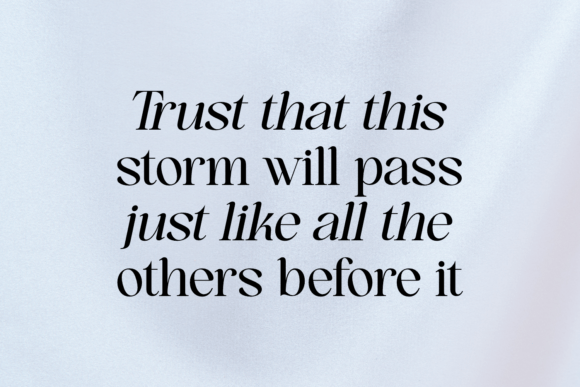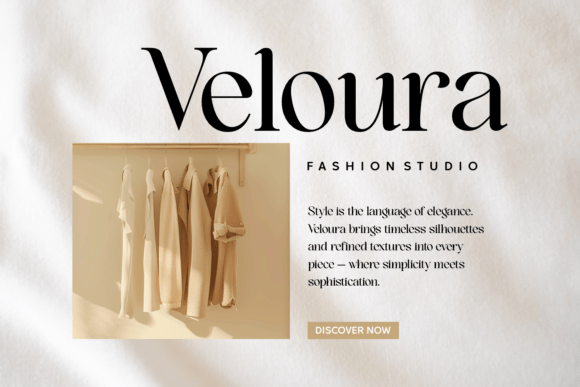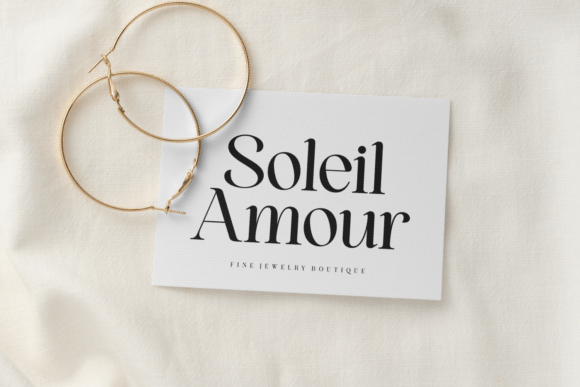
Introducing Calming Motion Font: Elevate Your Design with Serenity and Sophistication
In the world of design, typography plays a crucial role in conveying the tone and personality of a brand. For designers and crafters seeking to create a sense of calmness and luxury, the Calming Motion font is an excellent choice. This modern, elegant serif typeface is specifically designed to bring harmony and sophistication to your design work, making it perfect for a wide range of applications.
The Characteristics of Calming Motion Font
Calming Motion boasts soft curves, graceful terminals, and a contemporary feel that sets it apart from traditional serif typefaces. Its unique characteristics make it an ideal choice for designers looking to create a serene visual experience. The font’s gentle curves and refined lines evoke a sense of calmness, while its modern aesthetic ensures it remains fresh and relevant.
Ideal Applications for Calming Motion Font
Due to its elegant and sophisticated nature, Calming Motion is particularly well-suited for:
- Wellness Brands: Create a peaceful and calming atmosphere for your wellness brand with a font that exudes serenity and tranquility.
- Skincare Packaging: Elevate your skincare packaging with a luxurious and elegant font that conveys a sense of high-end quality.
- Fashion Editorials: Add a touch of sophistication and glamour to your fashion editorials with a font that is both modern and refined.
- Luxury Product Labels: Give your luxury products a premium feel with a font that embodies elegance and refinement.
- Minimal Branding: Create a clean and minimalist brand identity with a font that is both simple and sophisticated.
Why Choose Calming Motion Font?
Calming Motion offers a range of benefits for designers and crafters, including:
- Unique Visual Experience: Create a serene visual experience that sets your brand apart from the competition.
- Versatility: Use Calming Motion across a range of applications, from digital platforms to print materials.
- Elegance and Sophistication: Convey a sense of luxury and refinement with a font that is both modern and elegant.
- Easy to Read: The font’s clear and refined lines ensure excellent readability, making it perfect for body text and headlines.
Tips for Using Calming Motion Font Effectively
To get the most out of Calming Motion, consider the following tips:
- Pair with Contrasting Fonts: Combine Calming Motion with a contrasting font to create visual interest and hierarchy.
- Use for Headlines and Body Text: Take advantage of the font’s excellent readability by using it for both headlines and body text.
- Experiment with Colors: Try pairing Calming Motion with a range of colors to create different moods and atmospheres.
Calming Motion is a versatile and elegant serif typeface that is perfect for designers and crafters seeking to create a sense of calmness and sophistication. With its soft curves, graceful terminals, and contemporary feel, this font is ideal for a wide range of applications, from wellness brands to luxury product labels. By incorporating Calming Motion into your design work, you can create a serene visual experience that reflects calm confidence and sets your brand apart from the competition.
Whether you’re designing a website, crafting social media content, or creating print materials, Calming Motion is an excellent choice for any project that requires a touch of elegance and sophistication. So why not give it a try and experience the benefits of Calming Motion for yourself?